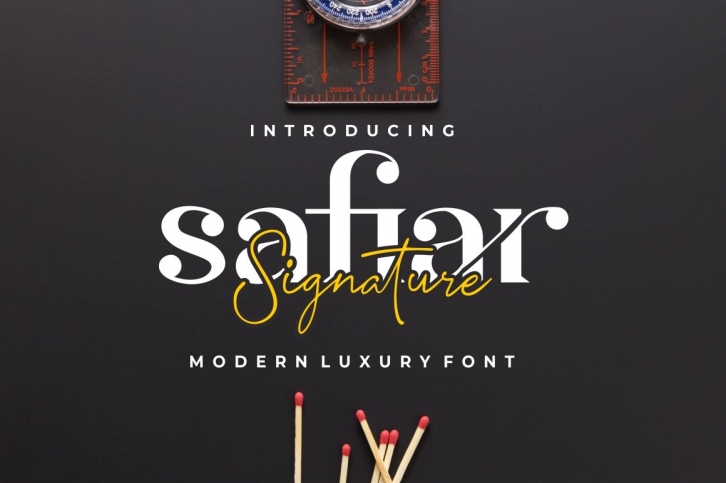
Safiar - Modern Luxury Font Duo
Safiar is a luxury modern sans serif and signature typeface. A perfect pair, can created to mix together. Safiar is perfectly suited to signature, wedding, social media, stationery, logo, typography quotes, magazine or book cover, website header, clothing, branding, packaging design and more.
Safiar Signature is a natural handwriting signature style font. Contains upper & lowercase characters, numerals, alternate and punctuation.
Safiar Sans is a modern and unique sans serif font with beautiful ligatures. Contains upper & lowercase characters, numerals and punctuation.